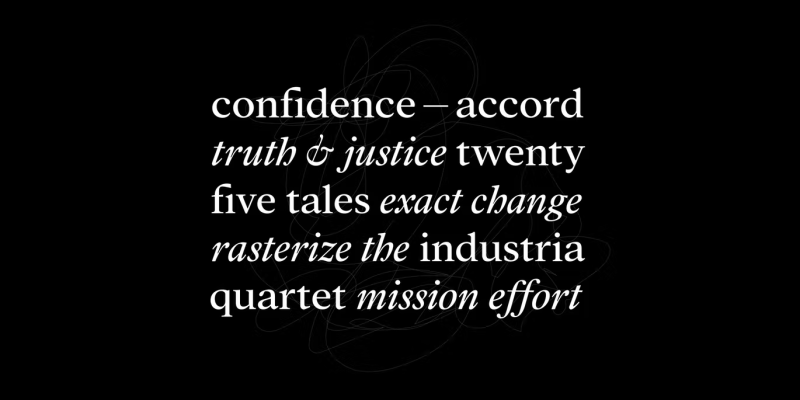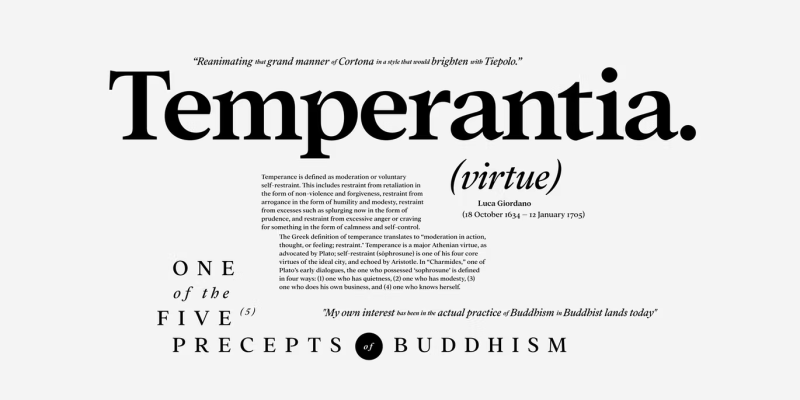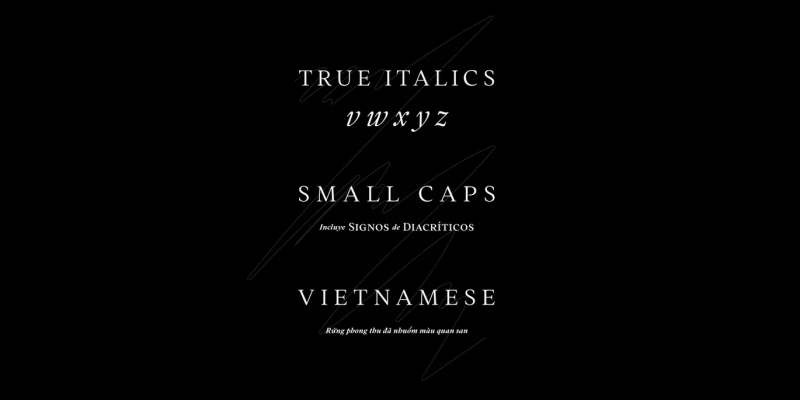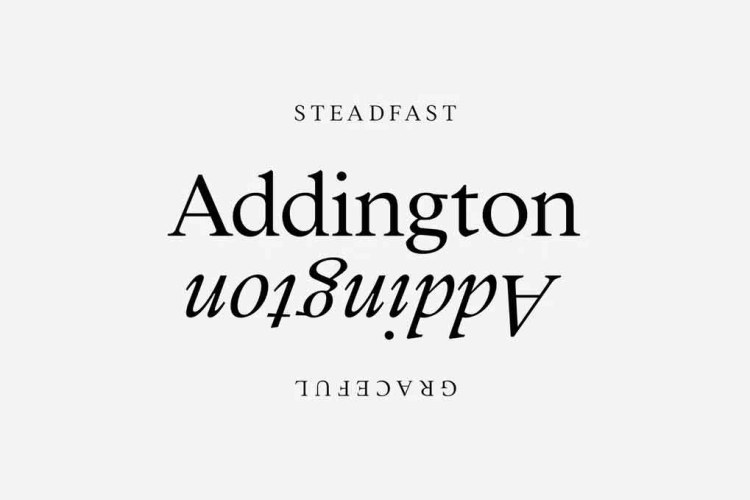
Addington CF serif font family
Reliable and workmanlike on the surface, Addington CF opens up and comes alive with its character and attention to detail. Beautiful yet practical – a versatile typeface…
Reliable and workmanlike on the surface, Addington CF opens up and comes alive with its character and attention to detail. Beautiful yet practical – a versatile typeface with elements of calligraphy, traditional serifs, and new ideas – Addington is a trusty go-to serif. Excellent for text large and small, complete with 6 weights, italics, and OpenType features.
Where Addington CF serif font family works best
Reports, white papers and book interiors hold the eye longer when the text face has real serifs; Addington CF serif font family keeps that rhythm without looking old-fashioned.
Food, spirits and cosmetics brands lean on serif wordmarks to suggest age and care. Addington CF serif font family gives that signal at wordmark size.
Set Addington CF serif font family for the body of an award or a diploma and keep the recipient name in a script; the pairing is what makes a document feel official.
What kind of work does Addington CF serif font family suit?
It sits in the Serif Fonts group and reads as calligraphy, classic, serif, serif fonts. That makes it a candidate wherever those qualities help: headings, packaging, social graphics and brand work. Set it at the size you plan to use before deciding.